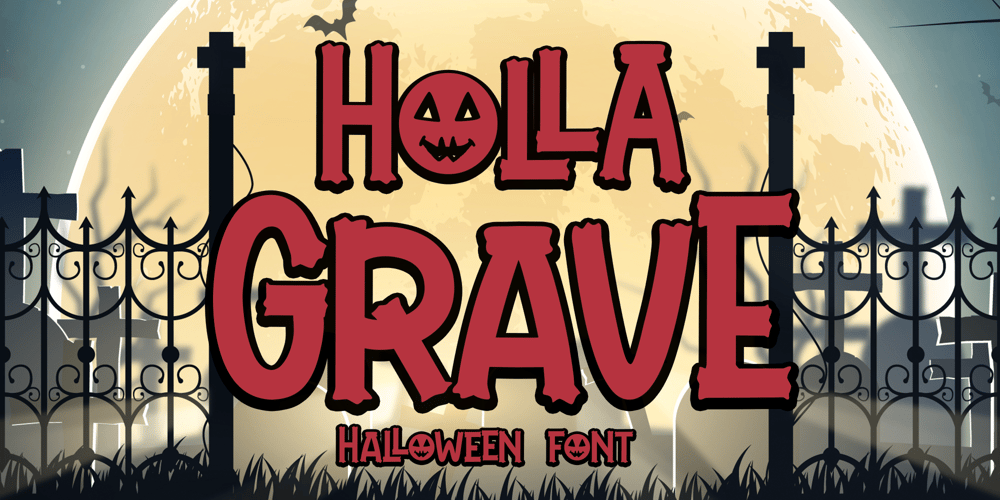
Holla Grave Font Family was designed by Endri Sulistyawan and published by Rashatype. Holla Grave contains 2 styles and family package options. Holla Grave is a cool and spooky display font. It is perfectly suitable for any Halloween-related project or crafty idea! This font is PUA encoded, which means that you can access all of the glyphs and swashes with ease!